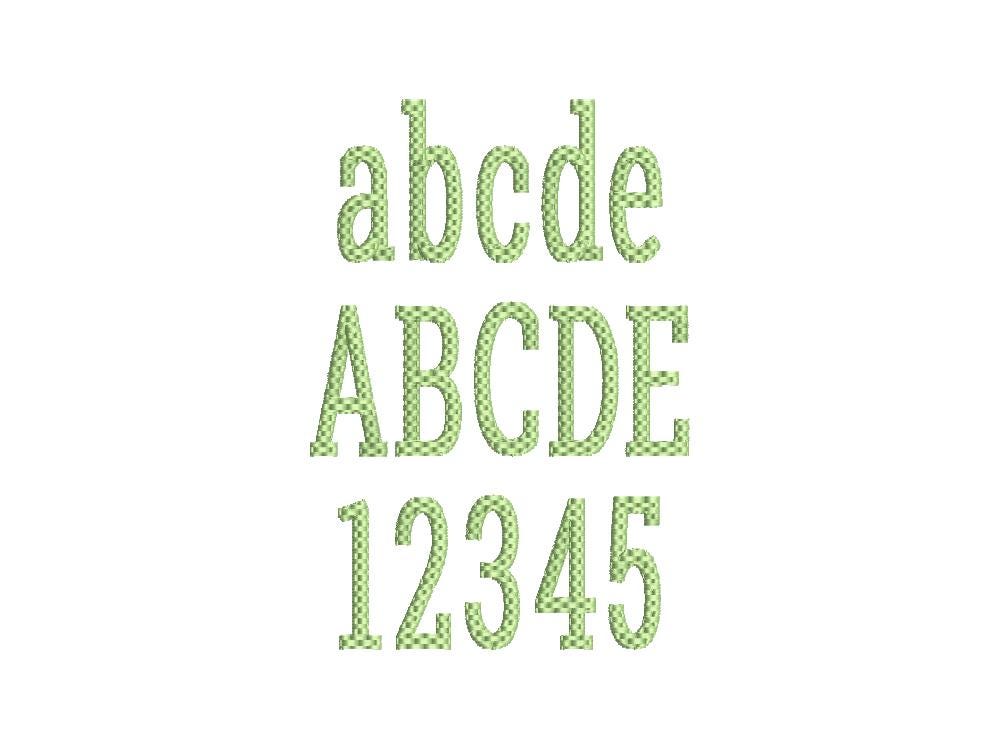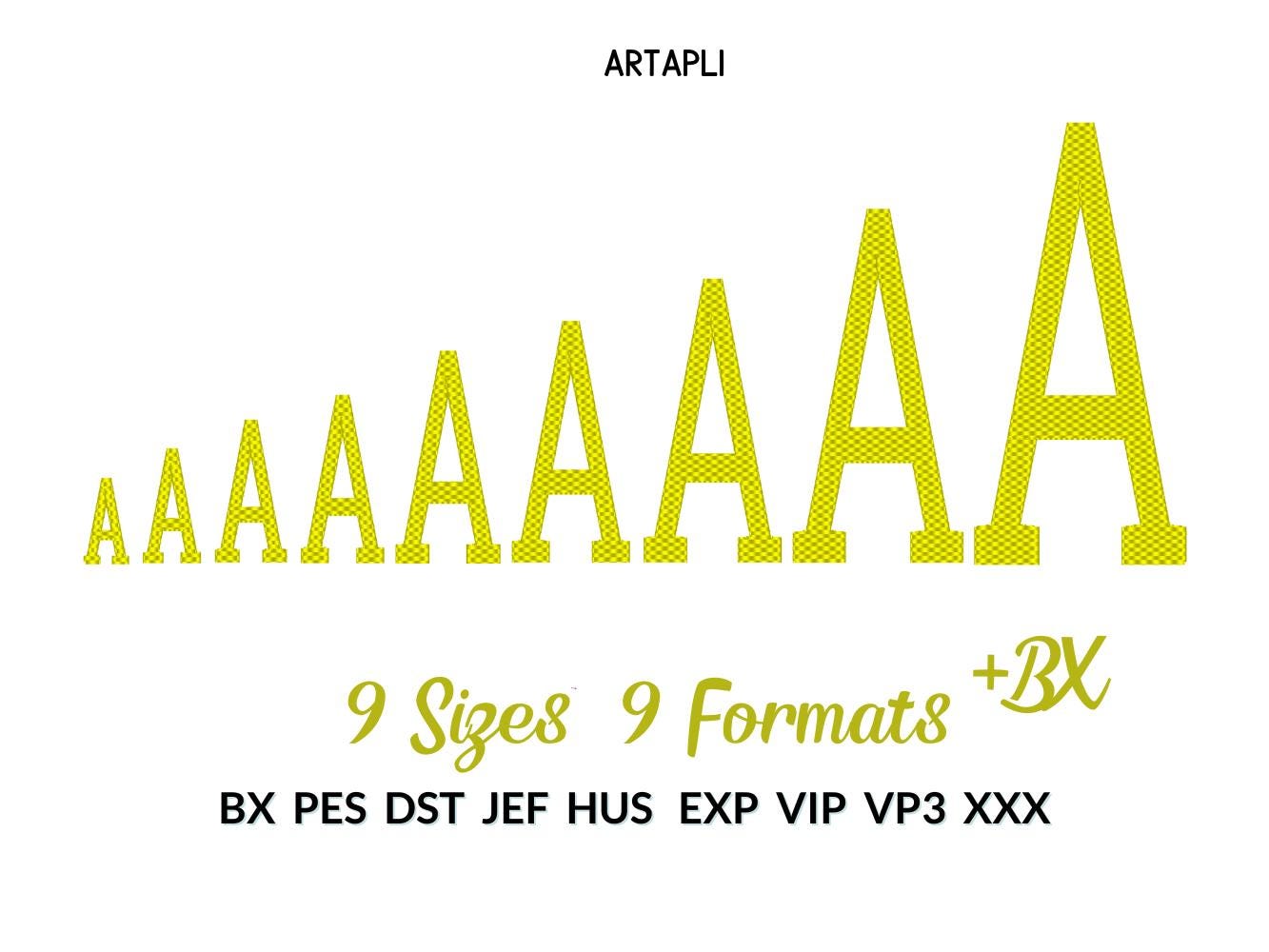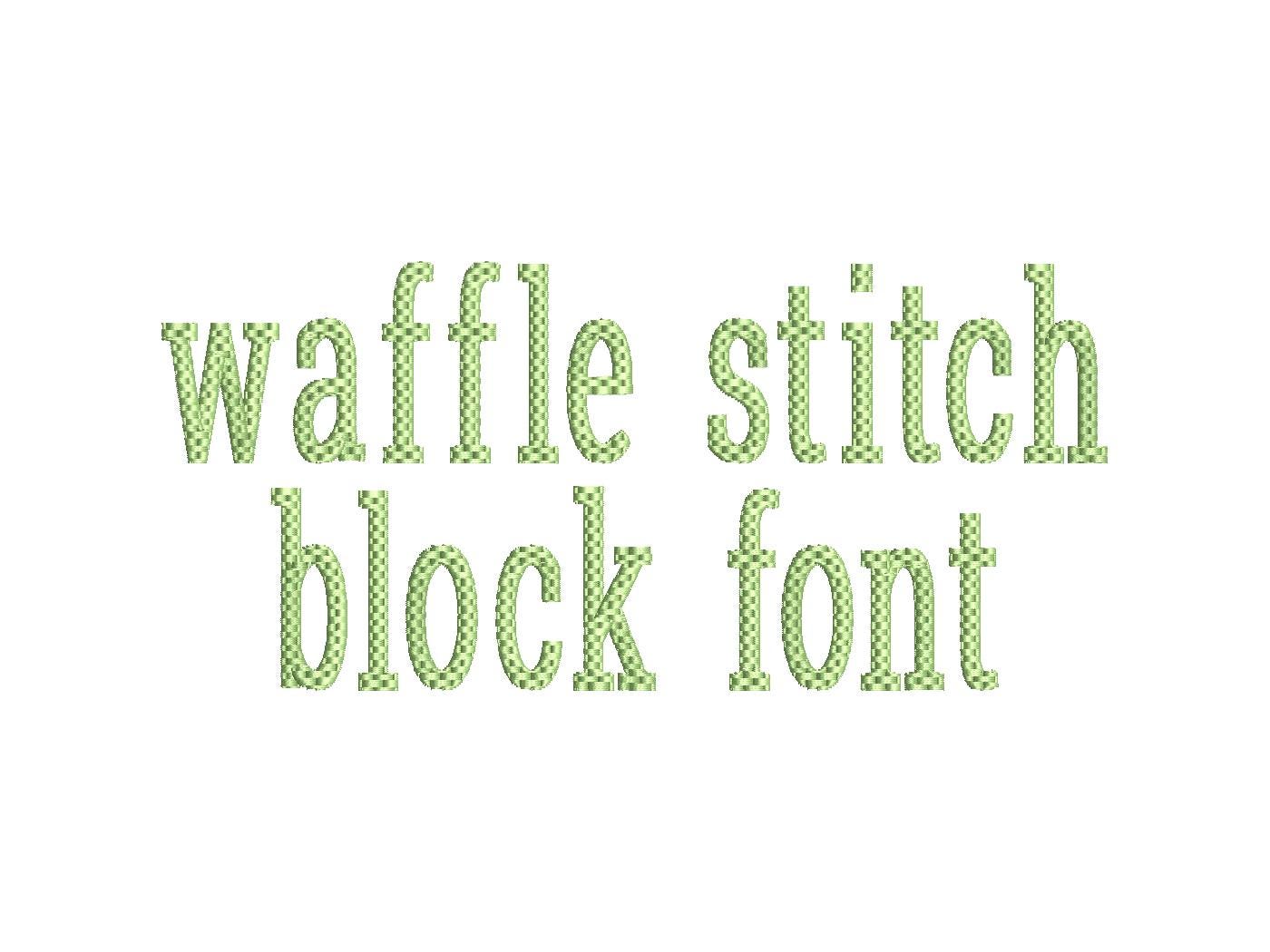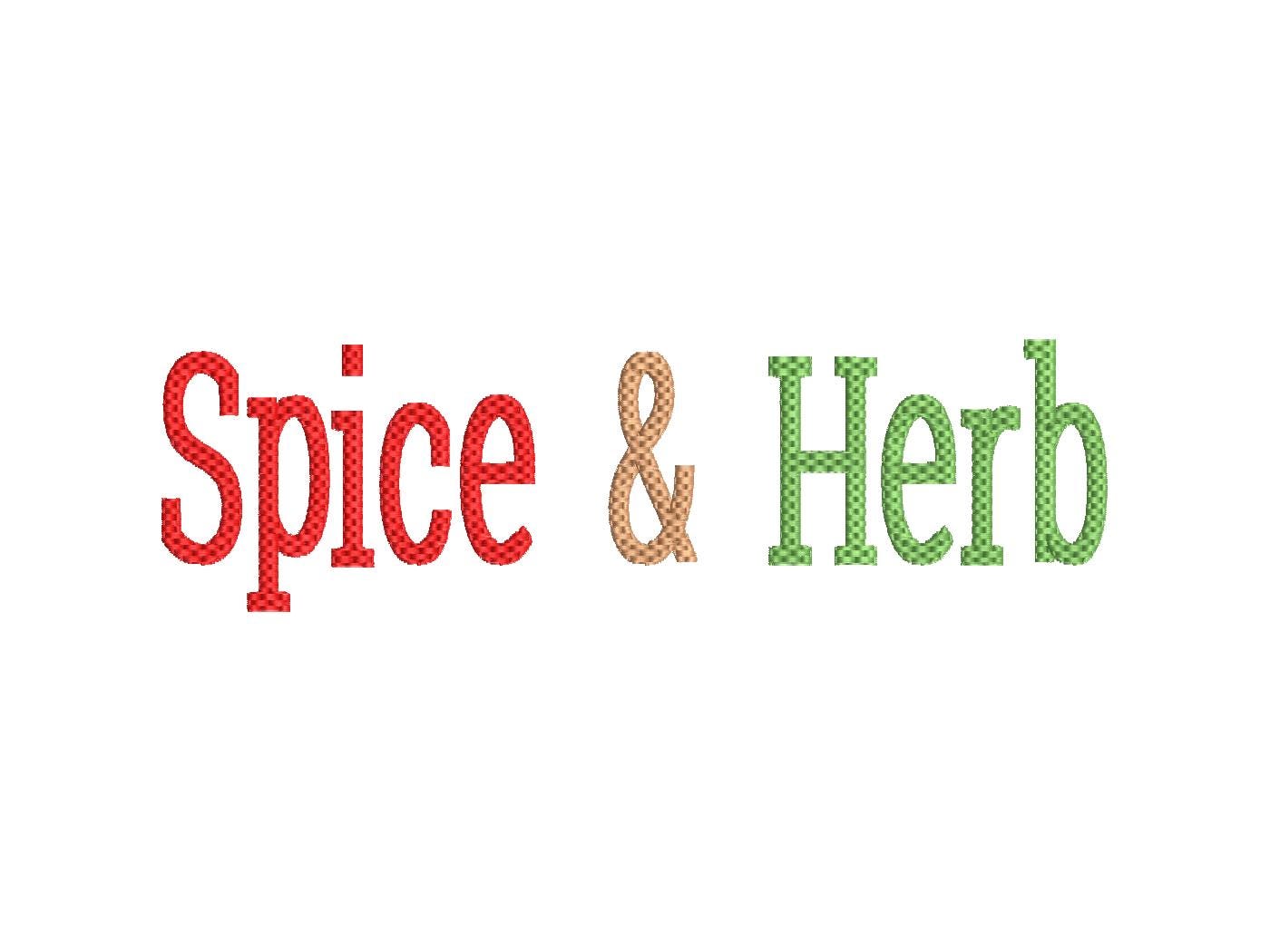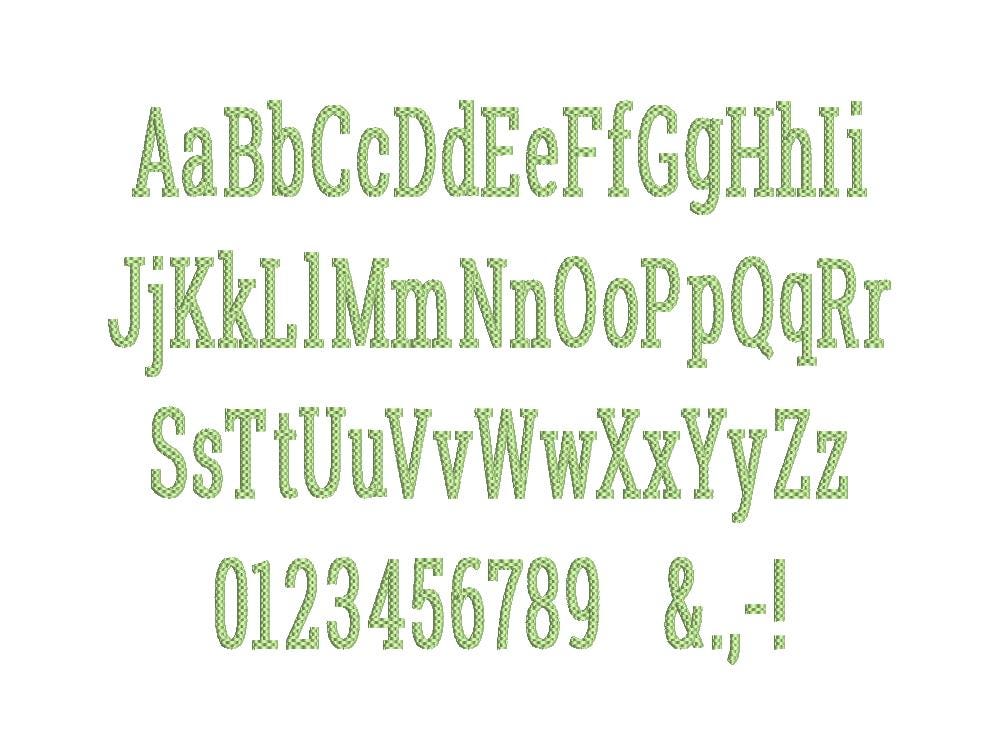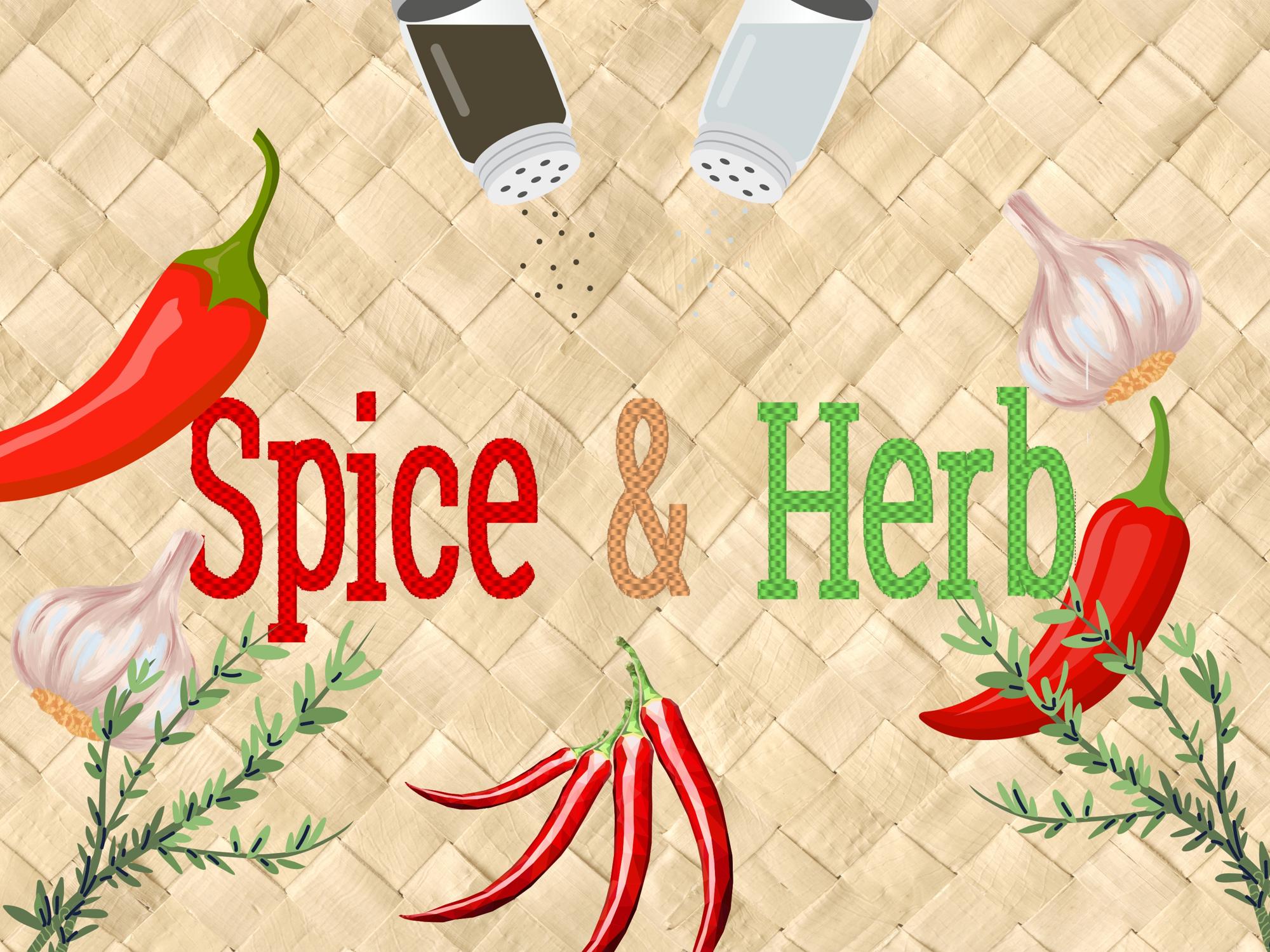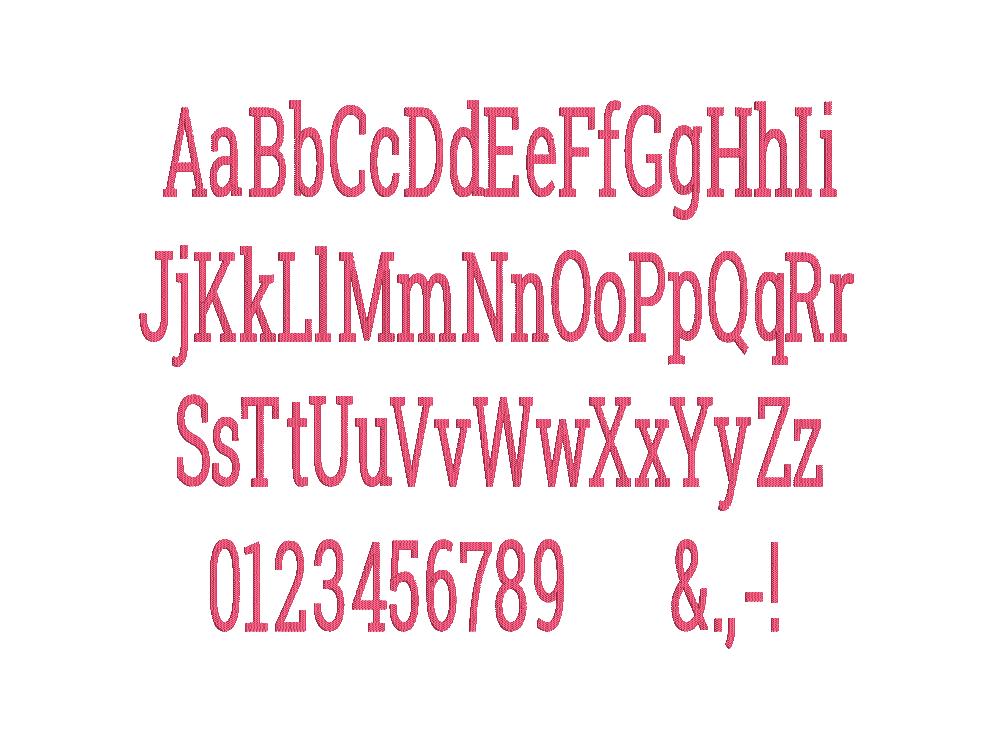
Block Narrow Font waffle textured fill stitch alphabet letters and numbers machine embroidery designs many sizes 1.2 to 6.3in monogram, BX included
Awesome textured waffle stitch fill! Stunning result!
Entire alphabet Aa-Zz uppercase and lowercase letters, numbers 0-9, and punctuation.